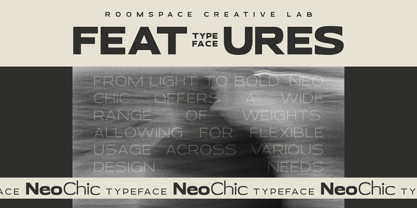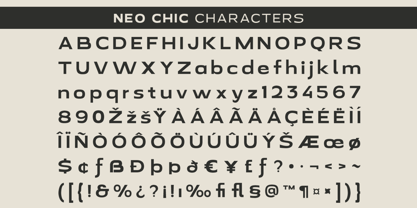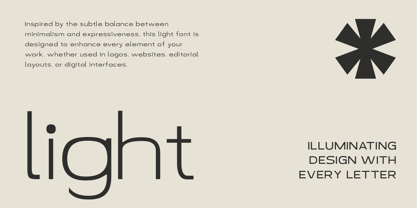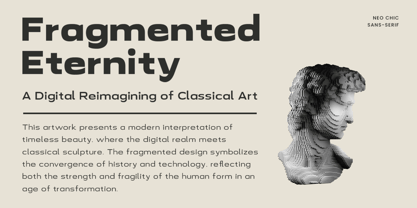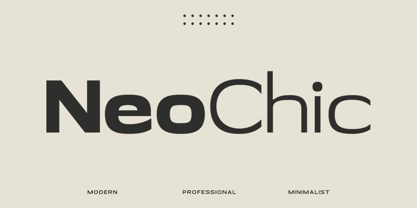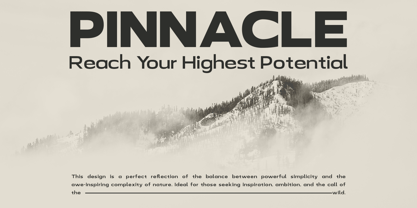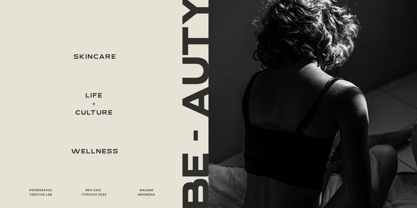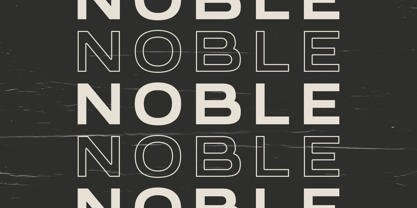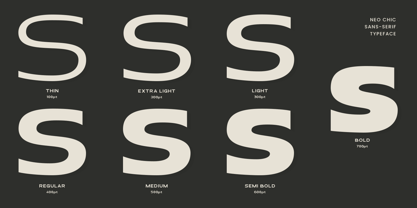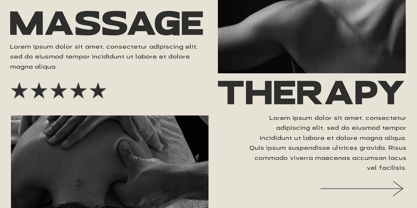
Neo Chic
by Jafar07
Neo Chic is a modern sans serif font designed to bring a professional and minimalist touch to any design project. With 7 different weights, this font offers versatility for a wide range of applications such as branding, logos, websites, posters, and more.
Neo Chic blends modern and classic styles, making it perfect for graphic designers, business owners, and content creators looking for a sleek and professional look. 7 Weights ranging from thin to bold, providing flexibility for any type of project, A clean and crisp modern classic style, ideal for branding and visual identity, Suitable for both print and digital media.